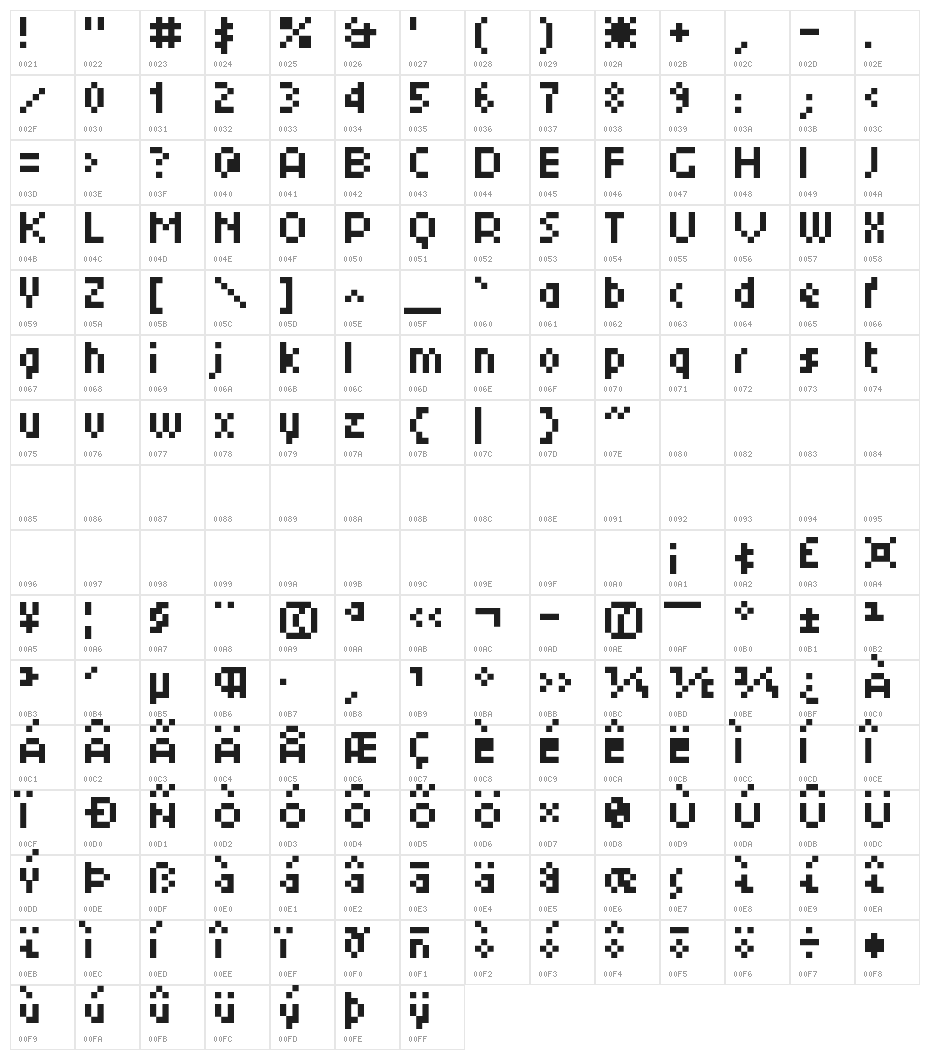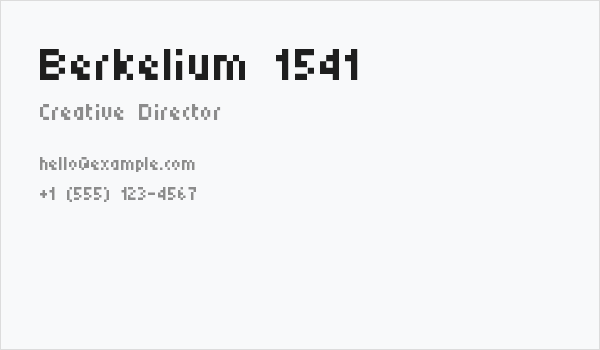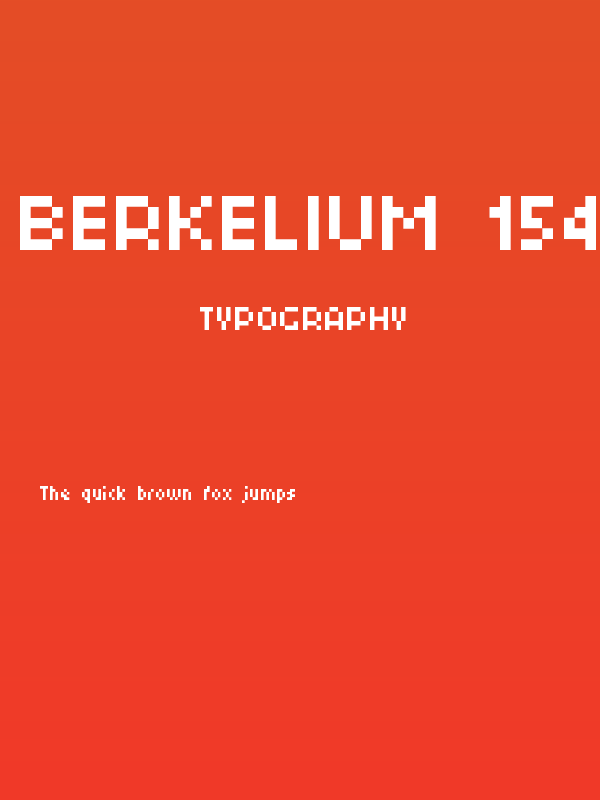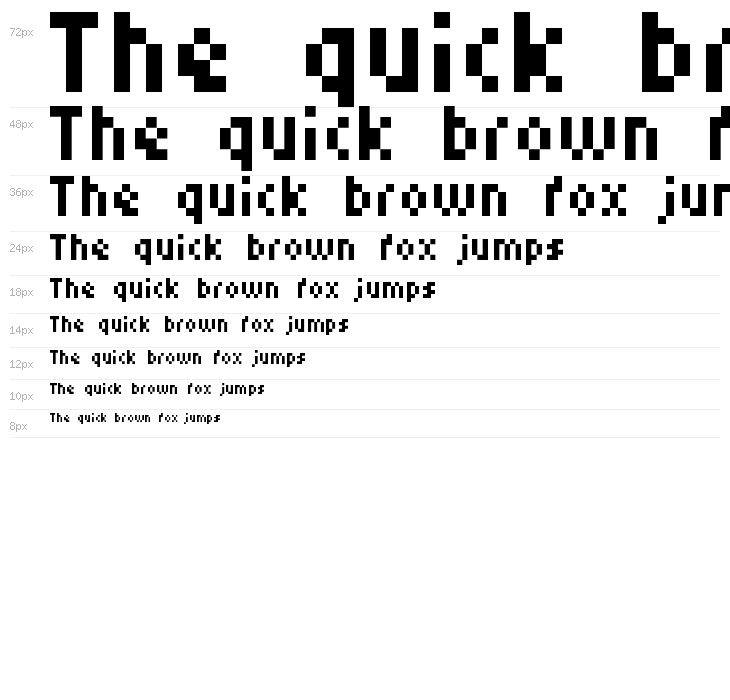
Berkelium 1541 Font
Berkelium 1541 Description
This font features a pixelated, blocky design reminiscent of early digital displays and video games. Each character is constructed with a grid-like precision, giving it a distinctly retro and technological feel. The uppercase and lowercase letters maintain a uniform height, enhancing the font's geometric consistency. Numbers and special characters follow the same pixelated style, ensuring a cohesive look across all glyphs. The font's simplicity and clarity make it highly legible, even at smaller sizes, while its unique style adds a playful, nostalgic touch to any project.
| Overall Style | Retro, Digital |
| Use Case | Headlines, Logos, Digital displays |
| Proposed Projects | Ideal for video game design, digital art projects, retro-themed posters, and tech-related branding. |